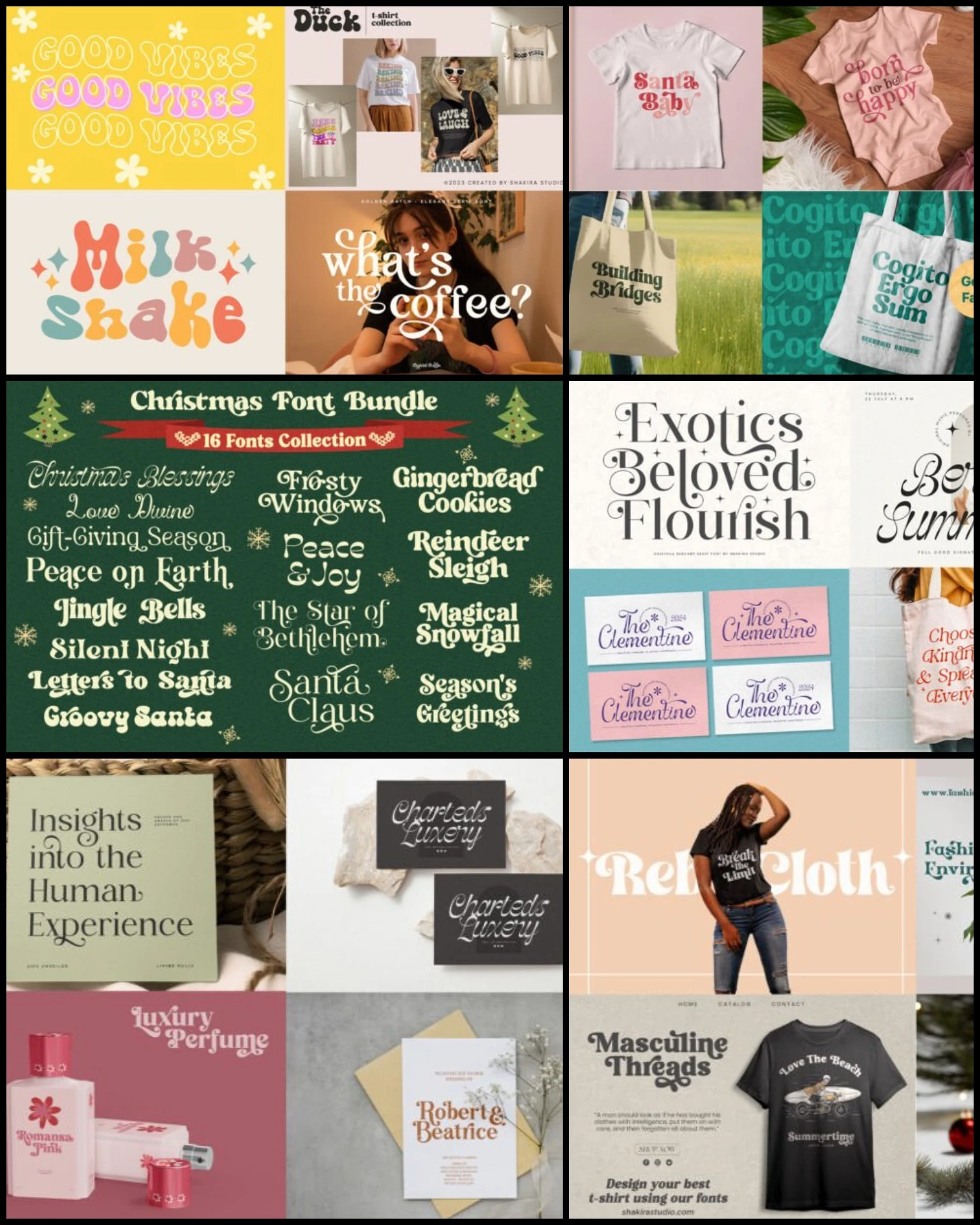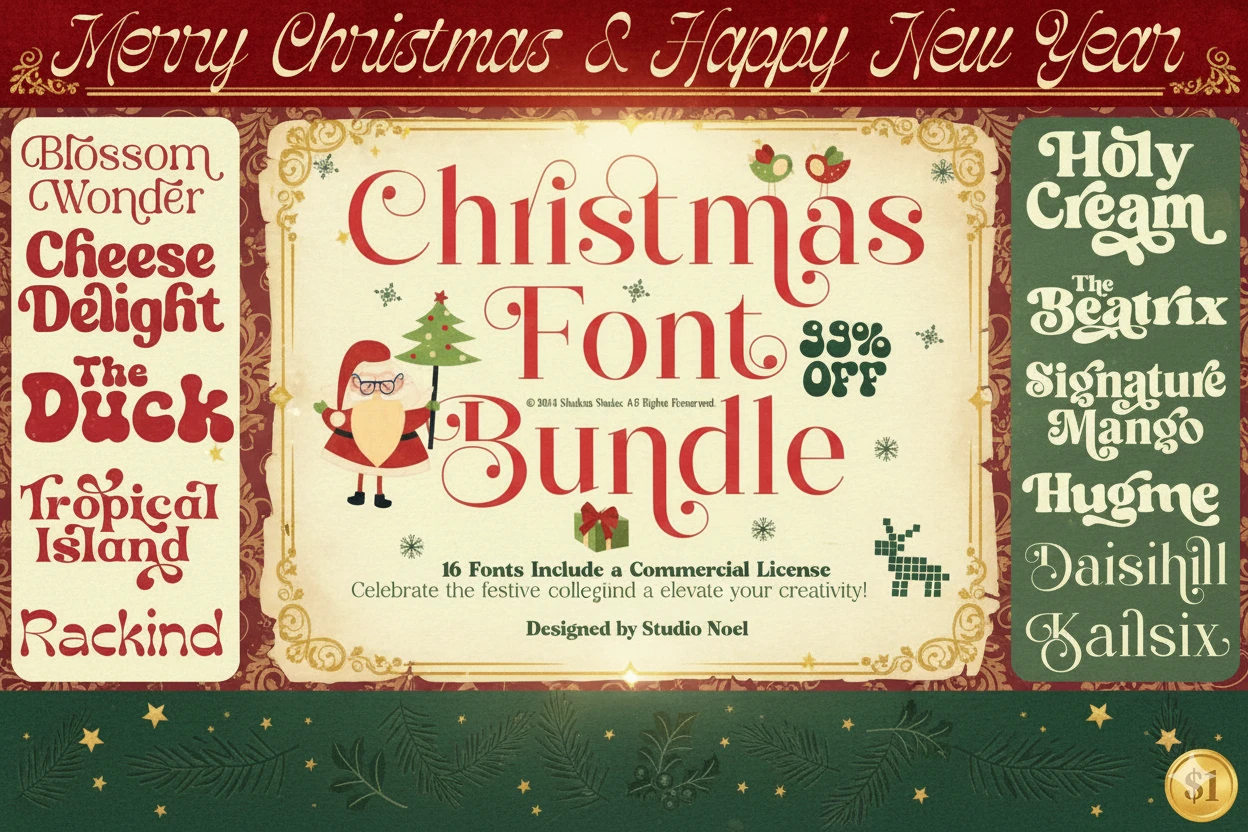
The Christmas Font Bundle is your ultimate festive collection featuring a mix of retro, modern, and elegant holiday fonts. Perfect for creating Christmas cards, logos, invitations, mugs, t-shirts, social media posts, and more!
Each font is designed with love and creativity to bring warmth, joy, and a magical holiday spirit to your projects. Whether you’re working in Cricut, Canva, or Procreate, these fonts make your Christmas crafts stand out.